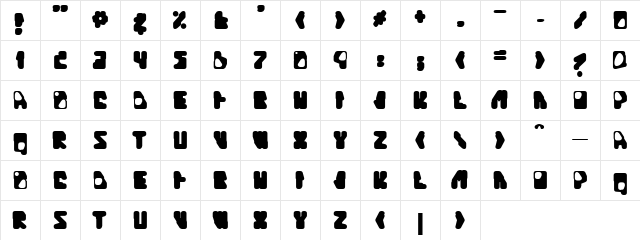
Quinine Normal Font Preview
Quinine Normal
Quinine Normal Font Details
Design Context for Quinine Typeface
Quinine is a composed and adaptable typeface that performs quietly and consistently across a wide range of design contexts.